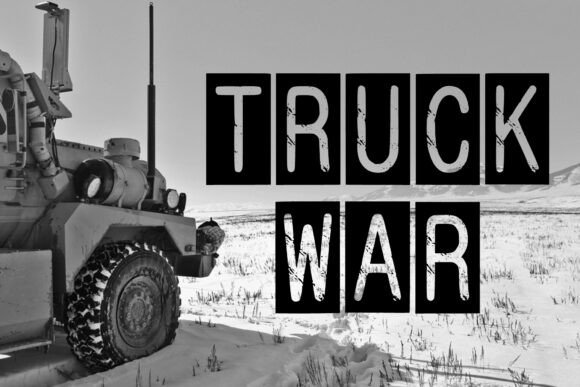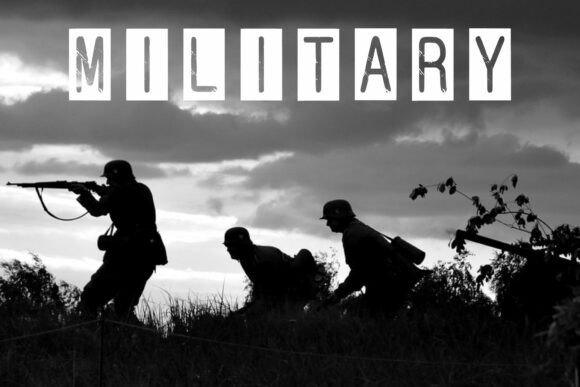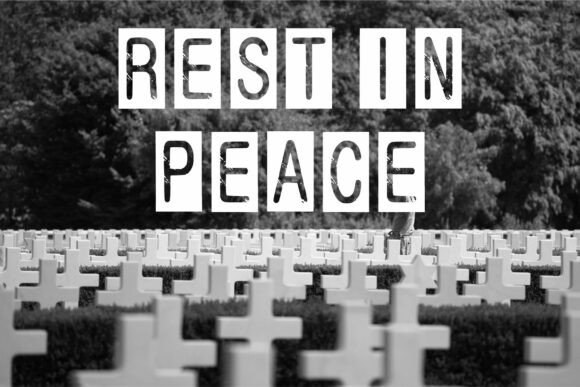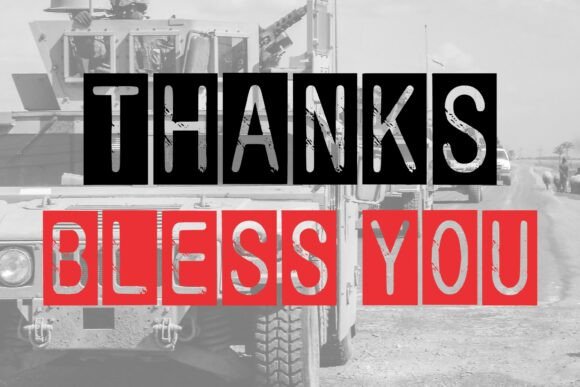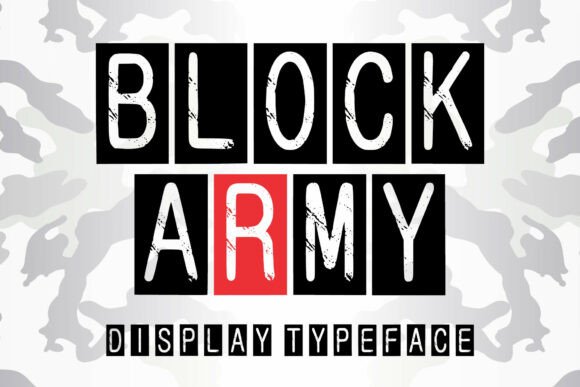
Introducing Block Army Font: The Ultimate Retro Classic Display Font
Are you a designer or crafter looking for a font that exudes energy, excitement, and a touch of nostalgia? Look no further than Block Army Font, an authentic retro classic display font that’s inspired by college typography. This bold and dynamic font is perfect for projects that require a strong and commanding look, with thick lines and sharp edges that convey power and athleticism.
The Inspiration Behind Block Army Font
Block Army Font draws its inspiration from the classic typography of college sports teams, particularly those in the United States. The font’s design is reminiscent of the bold and dynamic lettering often seen on sports jerseys, posters, and stadium signage. The result is a font that’s both nostalgic and modern, with a unique character that’s sure to grab attention.
Key Features of Block Army Font
So, what makes Block Army Font so special? Here are just a few of its key features:
- Bold and Dynamic Design: Block Army Font features thick lines and sharp edges that give it a strong and commanding look.
- Retro Classic Style: The font’s design is inspired by classic college typography, making it perfect for projects that require a nostalgic touch.
- Athletic and Sporty Feel: The font’s bold and dynamic design makes it perfect for sports-related projects, such as team logos, jerseys, and posters.
- Highly Versatile: Block Army Font can be used for a wide range of projects, from digital designs to print materials.
Uses for Block Army Font
So, what can you use Block Army Font for? The possibilities are endless, but here are a few ideas to get you started:
- Sports Team Logos: Use Block Army Font to create bold and dynamic logos for sports teams, leagues, or tournaments.
- Jerseys and Apparel: The font’s design is perfect for creating eye-catching jerseys, t-shirts, and other apparel for sports teams or events.
- Posters and Flyers: Use Block Army Font to create bold and attention-grabbing posters and flyers for sports events, tournaments, or promotions.
- Digital Designs: The font’s bold and dynamic design makes it perfect for digital designs, such as social media graphics, website headers, or video titles.
Tips for Using Block Army Font
Here are a few tips for getting the most out of Block Army Font:
- Use it Boldly: Block Army Font is designed to be bold and attention-grabbing, so don’t be afraid to use it in large sizes or in combination with other bold design elements.
- Experiment with Colors: The font’s design looks great in a wide range of colors, so feel free to experiment with different color schemes to find the one that works best for your project.
- Pair it with Other Fonts: Block Army Font can be paired with a wide range of other fonts to create interesting and dynamic typography.
In conclusion, Block Army Font is an authentic retro classic display font that’s perfect for designers and crafters looking for a bold and dynamic font that exudes energy and excitement. With its strong and commanding look, thick lines, and sharp edges, this font is sure to grab attention and convey power and athleticism. Whether you’re working on a sports-related project or just need a font that makes a statement, Block Army Font is an excellent choice.